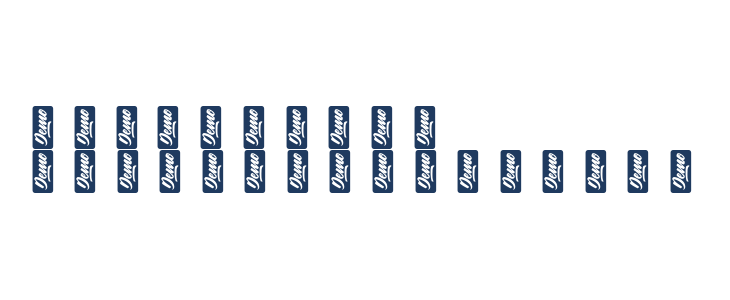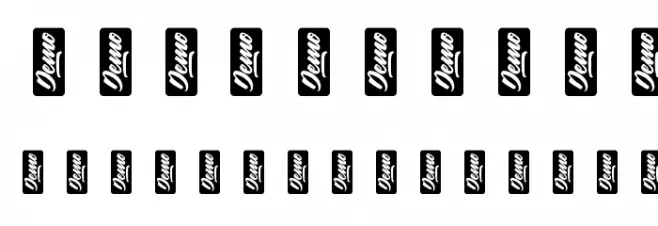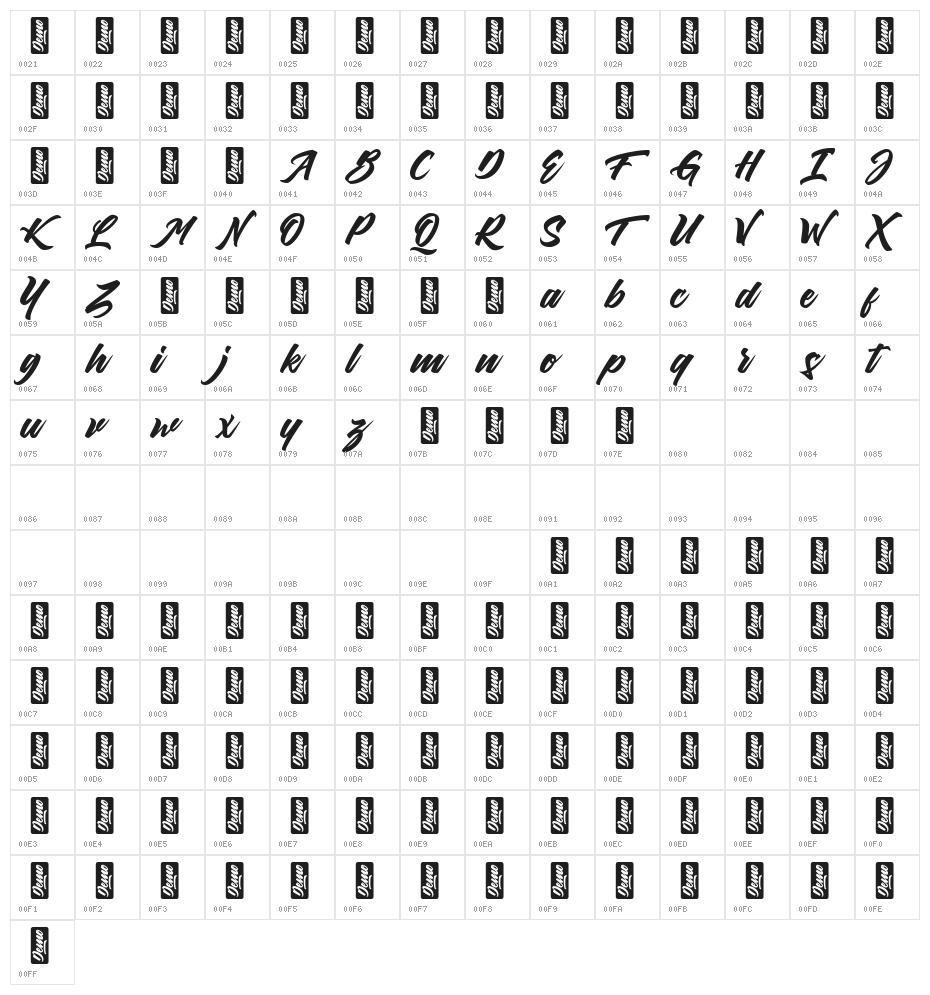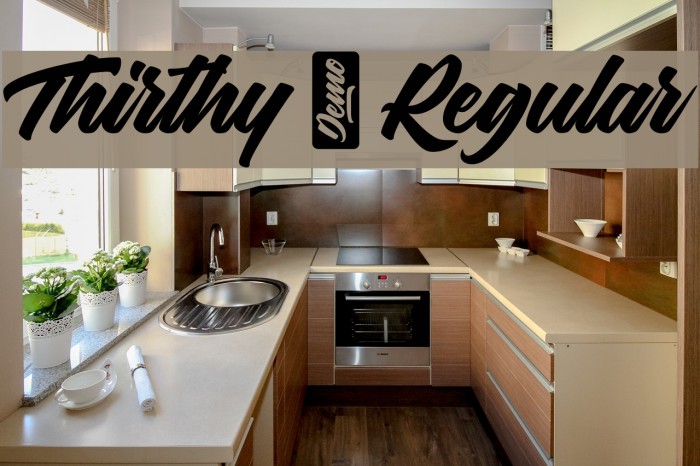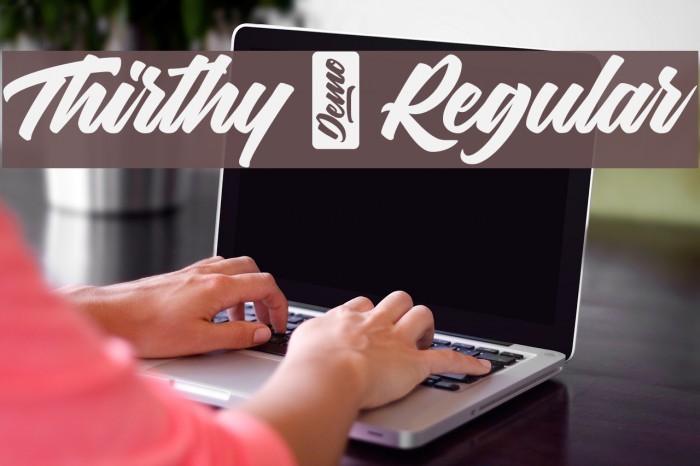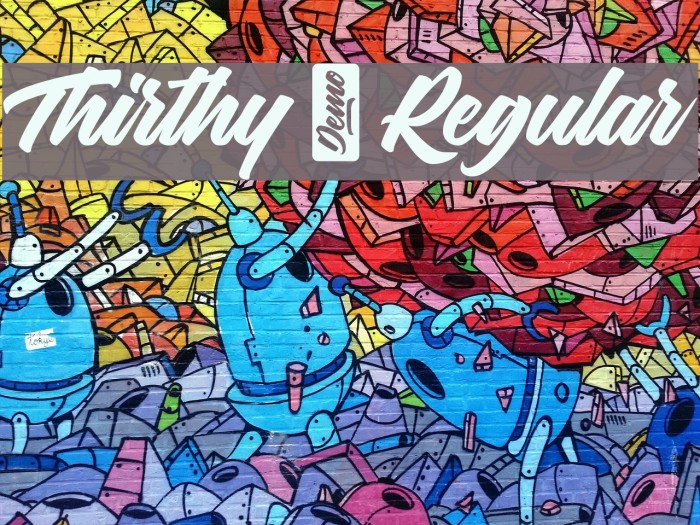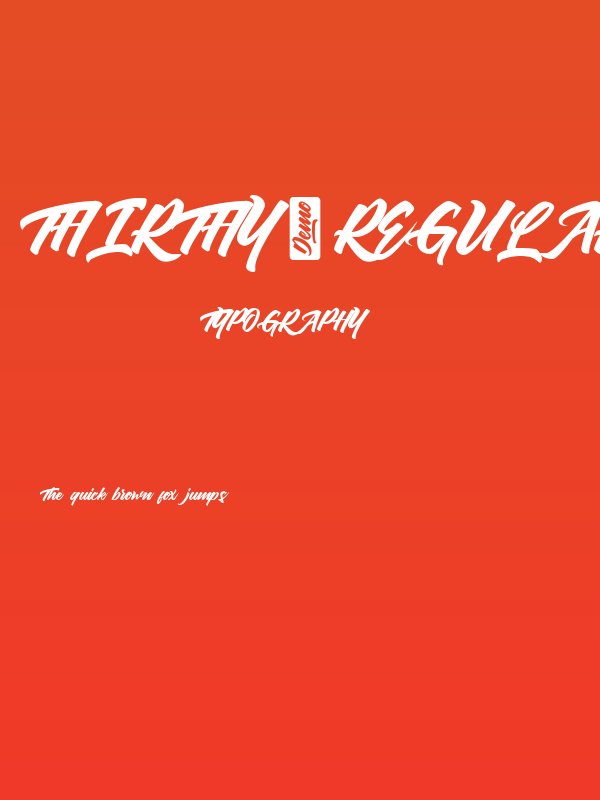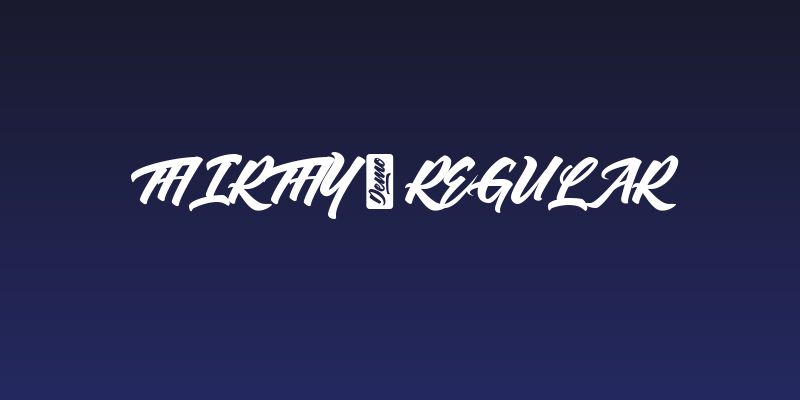
Thirthy-Regular Font
Thirthy-Regular Description
This font features a bold, expressive script style with a dynamic flow and a sense of movement. The letters are interconnected, creating a cohesive and fluid appearance. The strokes are thick and confident, with a slight slant that adds to the energetic feel. The uppercase and lowercase letters maintain a consistent style, with the uppercase being slightly more elaborate. The font's design is both modern and artistic, making it suitable for creative and eye-catching designs.
| Proposed Projects | Ideal for branding, logos, headlines, posters, and invitations where a bold and artistic touch is desired. |